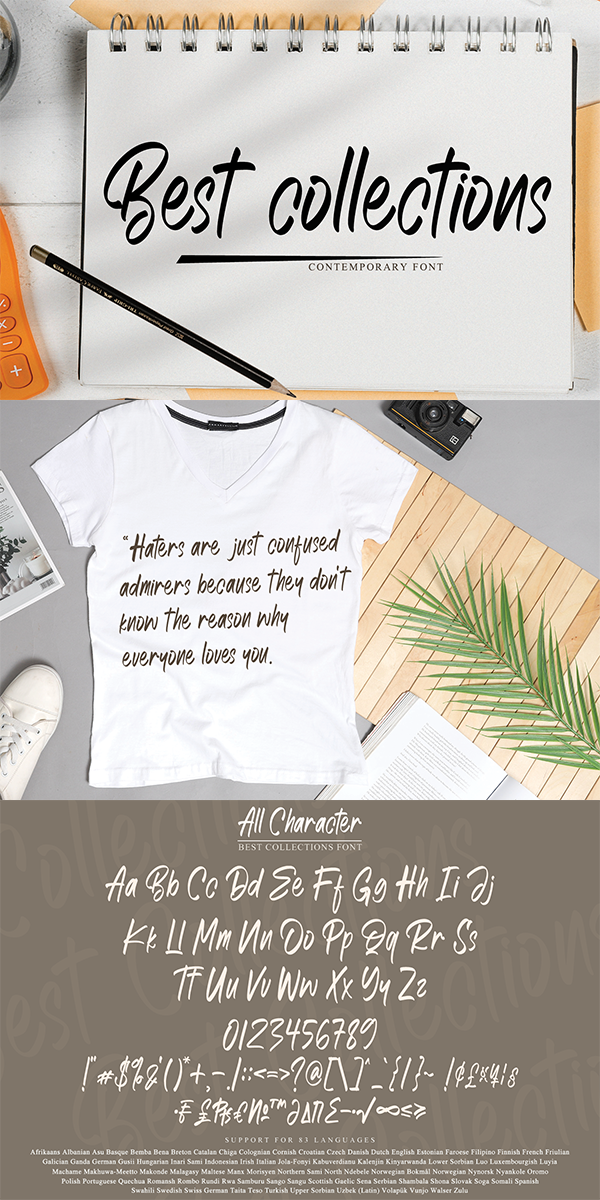
Best Collections Font
Designed by Gie Studio
About Best Collections
Best Collections is a thin lettered and flowing font. Fall for its ravishing style and use it to create gorgeous wedding invitations, beautiful stationary art, eye-catching social media posts, and much more!
-Multilingual Support for 83 Country
-Special underline collection